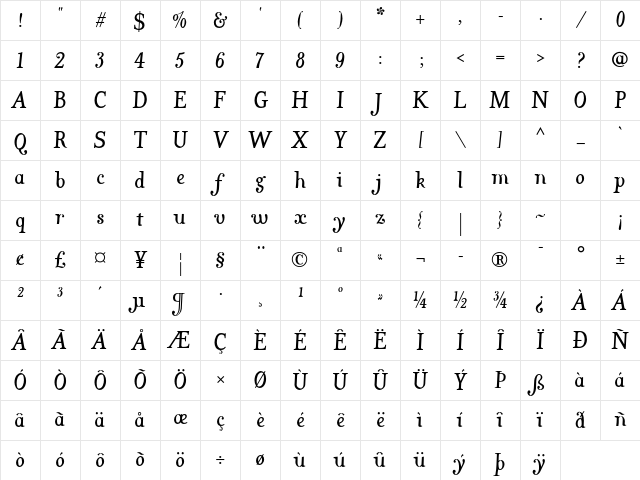
Complete Varius 2 LT Std Italic glyph index. Displaying only characters natively supported by Varius 2 LT Std Italic font.
Varius 2 LT Std is a composed and adaptable typeface that performs quietly and consistently across a wide range of design contexts. The slanted form adds forward momentum and visual energy. Its slender proportions lend an understated elegance to any composition.